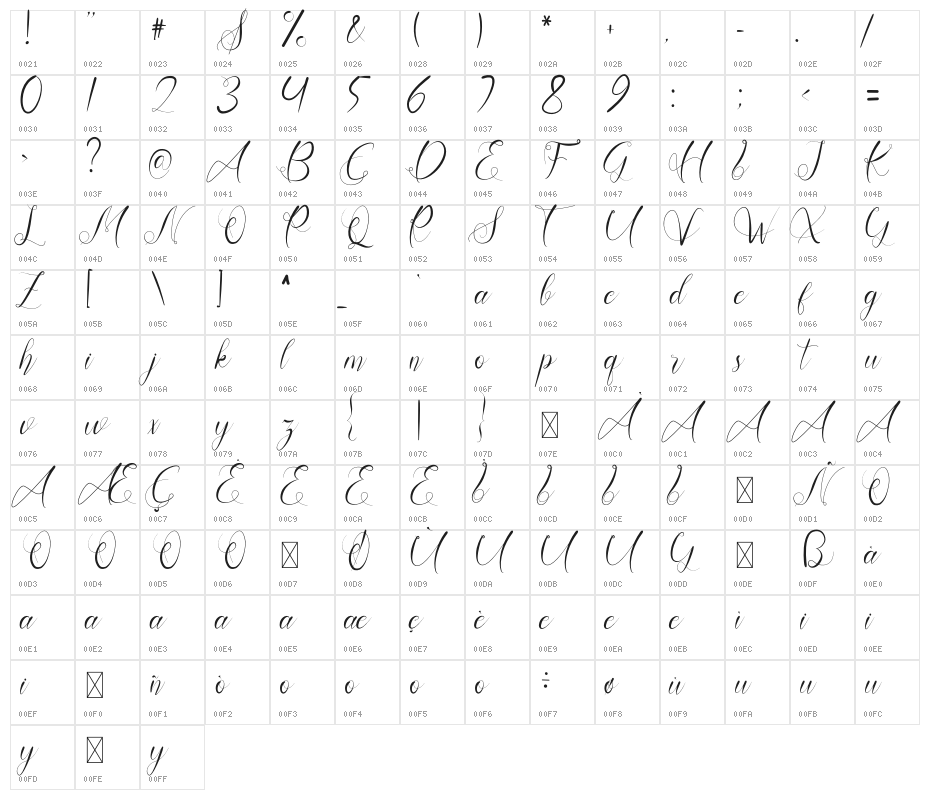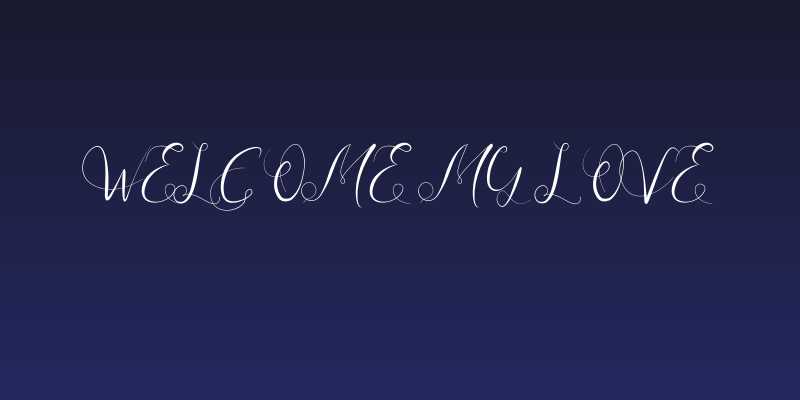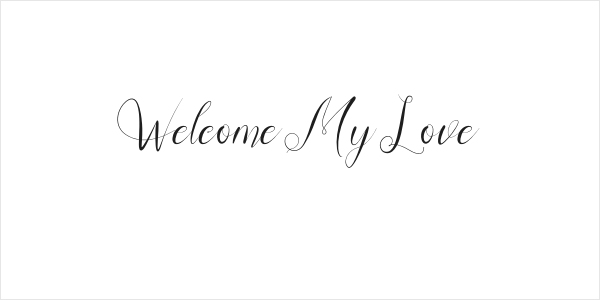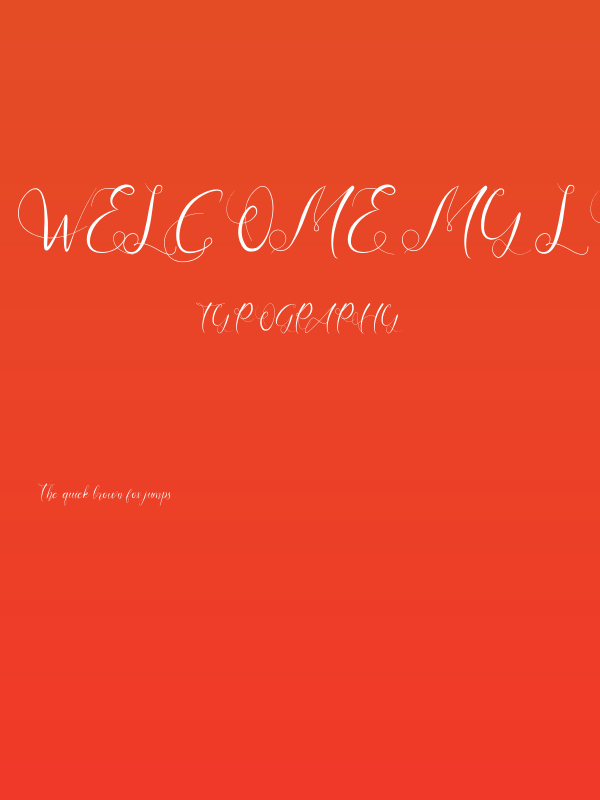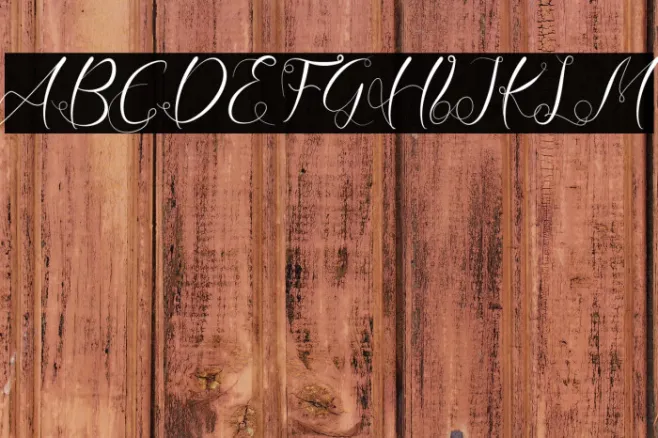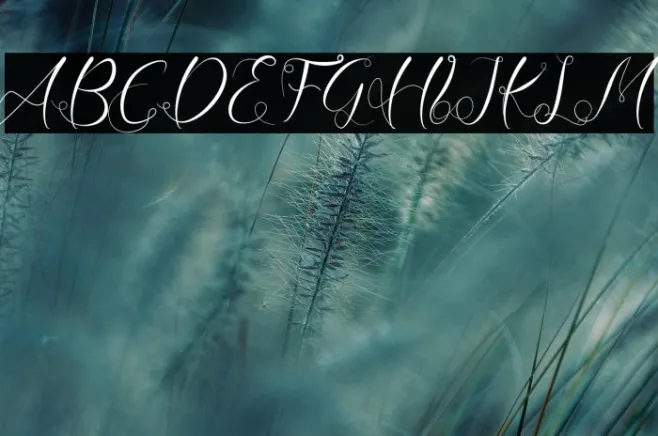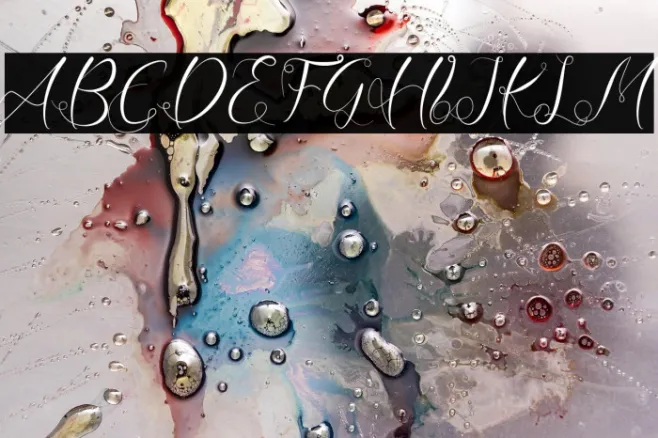
Welcome My Love Font
Welcome My Love Description
This elegant script font features a flowing, cursive style with intricate swashes and flourishes that add a touch of sophistication and romance. The uppercase letters are adorned with elaborate loops and curves, while the lowercase letters maintain a graceful continuity. The numerals and special characters are designed with the same attention to detail, ensuring a cohesive look across all elements. The font's delicate lines and artistic flair make it ideal for projects that require a personal and stylish touch.
| Proposed Projects | Perfect for wedding invitations, greeting cards, branding, and elegant packaging. |